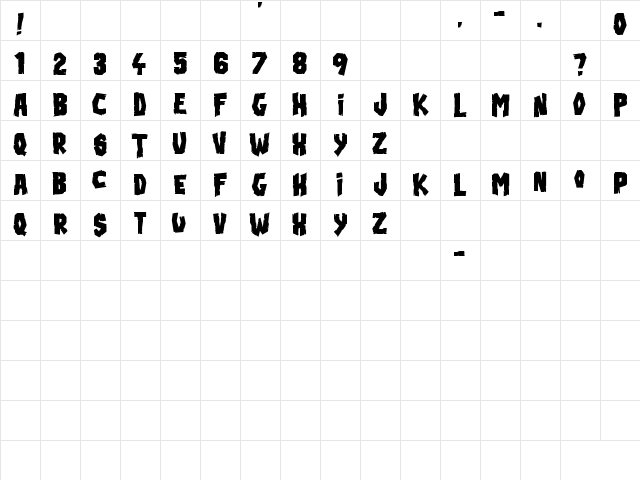
Blood'n Guts Regular Font Preview
Blood'n Guts Regular
Blood'n Guts Regular Font Details
| Designer | IMAGEX |
Design Context for Blood'n Guts Typeface
Blood'n Guts carries an unsettling edge — its distorted letterforms are built to unsettle, perfectly suited to horror, Halloween, and dark creative work.
Ideal for Halloween projects, horror film titles, haunted house signage, and dark editorial design.
Font Pairing: Pair with a clean neutral sans-serif for body copy to let Blood'n Guts's character lead without overwhelming the composition.
Pro Tip: Blood'n Guts works best as a headline or focal element. Pair it against plain, neutral body text to amplify the contrast.